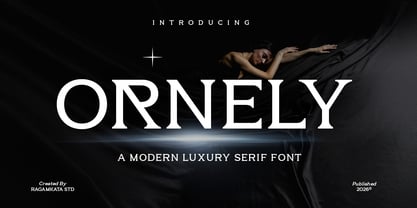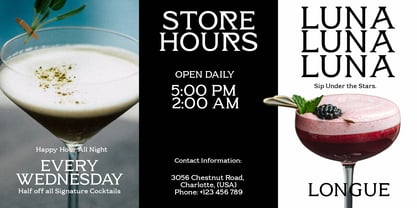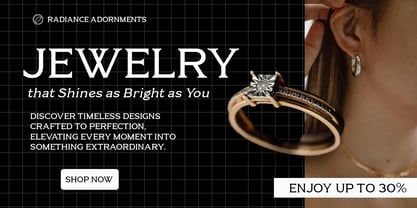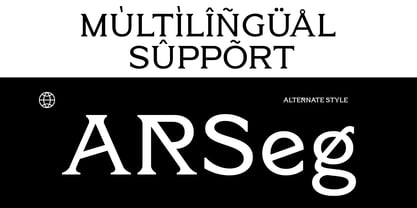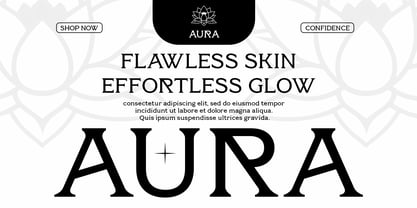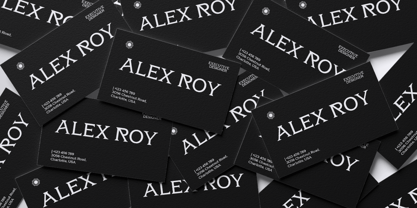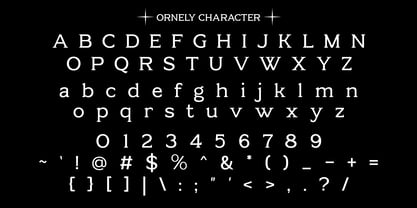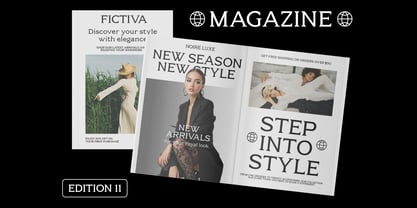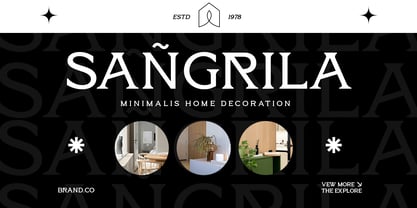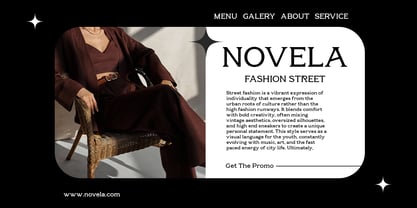
Ornely
by RagamKata
The Ornely Font Family was designed by Yogiswhara Dio Prakoso Riadi and published by RagamKata. Ornely contains 2 styles and family package options. More about this family
Ornely is a modern luxury serif font crafted to embody elegance, sophistication, and timeless beauty. Featuring refined serif details, balanced proportions, and graceful letterforms, Ornely provides a premium typographic presence that elevates any design. Its unique blend of modern structure and classic serif aesthetics makes this font ideal for high-end visual identities. Perfectly suited for luxury branding, fashion editorials, premium packaging, magazine layouts, logo design, wedding invitations, and elegant marketing materials, Ornely creates a strong yet graceful visual impression that captures attention while ensuring excellent readability across both digital and print applications. Whether utilized for fashion labels, beauty brands, luxury product packaging, or editorial typography, Ornely infuses sophistication and contemporary elegance into every letter. This font empowers designers to craft refined and visually striking designs with a timeless luxury aesthetic.
Designers: Yogiswhara Dio Prakoso Riadi
Foundry: RagamKata